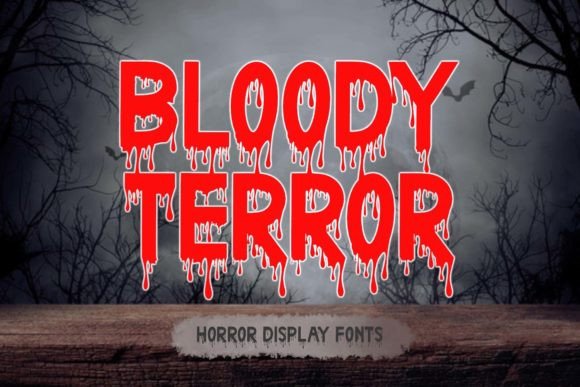
Bloody Terror Font: The Ultimate Decorative Font for Spooky Moments
The Bloody Terror Font is a unique and eye-catching decorative font that features letters that resemble blood dripping. This font is perfect for creating spooky and eerie moments, making it an ideal choice for Halloween-themed designs, movie titles, comics, and more. In this article, we’ll explore the features and benefits of the Bloody Terror Font and how it can elevate your designs to the next level.
What is Bloody Terror Font?
The Bloody Terror Font is a decorative font designed to resemble blood dripping letters. It’s a one-of-a-kind font that adds a touch of horror and eeriness to any design. The font features bold and dripping letters that are sure to grab attention and create a lasting impression. Whether you’re designing a Halloween greeting, invitation, or movie title, the Bloody Terror Font is the perfect choice.
Features of Bloody Terror Font
The Bloody Terror Font comes with several features that make it a versatile and useful font for designers. Some of its key features include:
- Unique Design: The Bloody Terror Font features a unique design that resembles blood dripping letters, making it perfect for creating spooky and eerie moments.
- Decorative Letters: The font features decorative letters that are bold and eye-catching, making it perfect for headlines, titles, and more.
Benefits of Using Bloody Terror Font
The Bloody Terror Font offers several benefits to designers, including:
- Adds a Touch of Horror and Eeriness: The font adds a touch of horror and eeriness to any design, making it perfect for Halloween-themed designs and more.
- Grabs Attention: The bold and dripping letters of the Bloody Terror Font grab attention and create a lasting impression.
- Increases Creativity: The font’s unique design inspires creativity and allows designers to think outside the box.
- Perfect for Various Design Projects: The Bloody Terror Font is perfect for various design projects, including Halloween greetings, invitations, movie titles, comics, and more.
Use Cases for Bloody Terror Font
The Bloody Terror Font is perfect for various design projects, including:
- Halloween Greetings and Invitations: The font is perfect for creating spooky and eerie Halloween greetings and invitations.
- Movie Titles and Posters: The Bloody Terror Font is ideal for creating movie titles and posters, especially for horror movies.
- Comics and Graphic Novels: The font is perfect for creating comic book titles, covers, and interior designs.
- Social Media Posts: The Bloody Terror Font can be used to create eye-catching social media posts, especially for Halloween-themed content.
Tips and Tricks for Using Bloody Terror Font
Here are some tips and tricks for using the Bloody Terror Font:
- Use it Sparingly: Use the Bloody Terror Font sparingly to avoid overwhelming your design.
- Experiment with Colors: Experiment with different colors to create a unique and eye-catching design.
- Combine with Other Fonts: Combine the Bloody Terror Font with other fonts to create a contrasting and visually appealing design.
The Bloody Terror Font is a unique and eye-catching decorative font that’s perfect for creating spooky and eerie moments. Its bold and dripping letters make it perfect for Halloween-themed designs, movie titles, comics, and more. With its ease of use and compatibility with various design software, the Bloody Terror Font is a must-have for designers looking to add a touch of horror and eeriness to their designs.